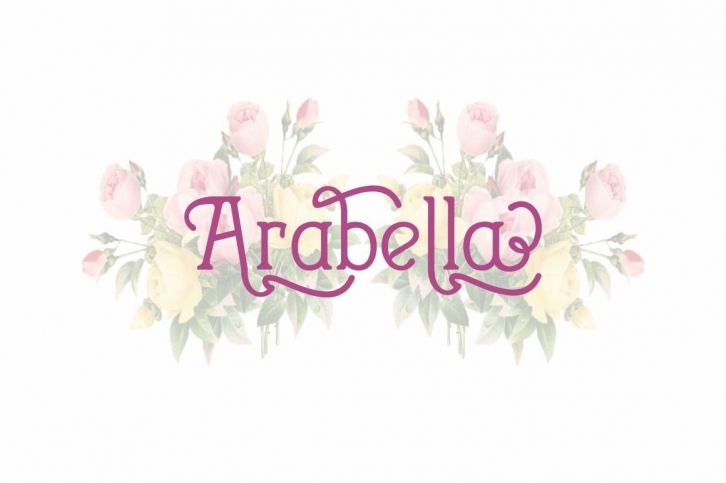
Arabella script FONT Download
Arabelle Script is stylish copperplate calligraphy fonts, combines from copperplate to contemporary typeface with a dancing baseline, classic and ellegant touch. Can be used for various purposes. Such as headings, logos, wedding invitation, t-shirt, letterhead, signage, lable, news, posters, badges etc.
Arabella Script include uppercase and lowercase , glyphs alternate characters ligatures and multiple language support.